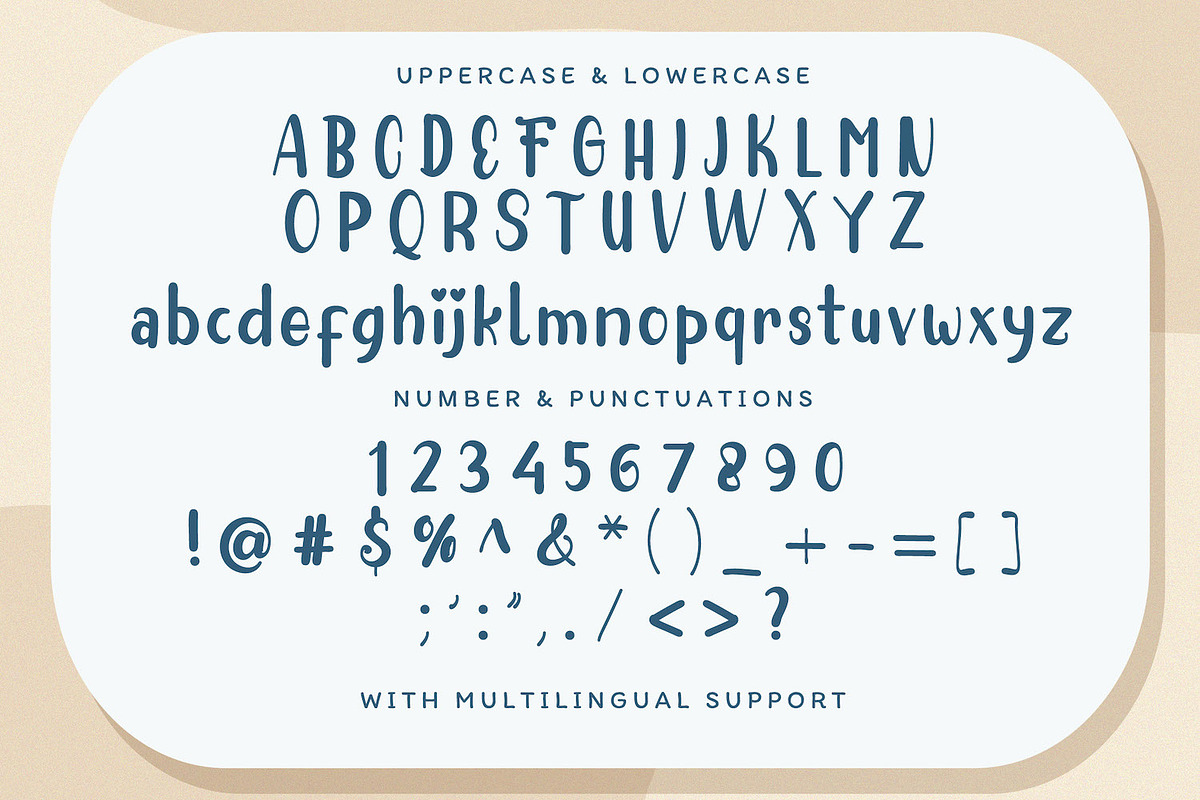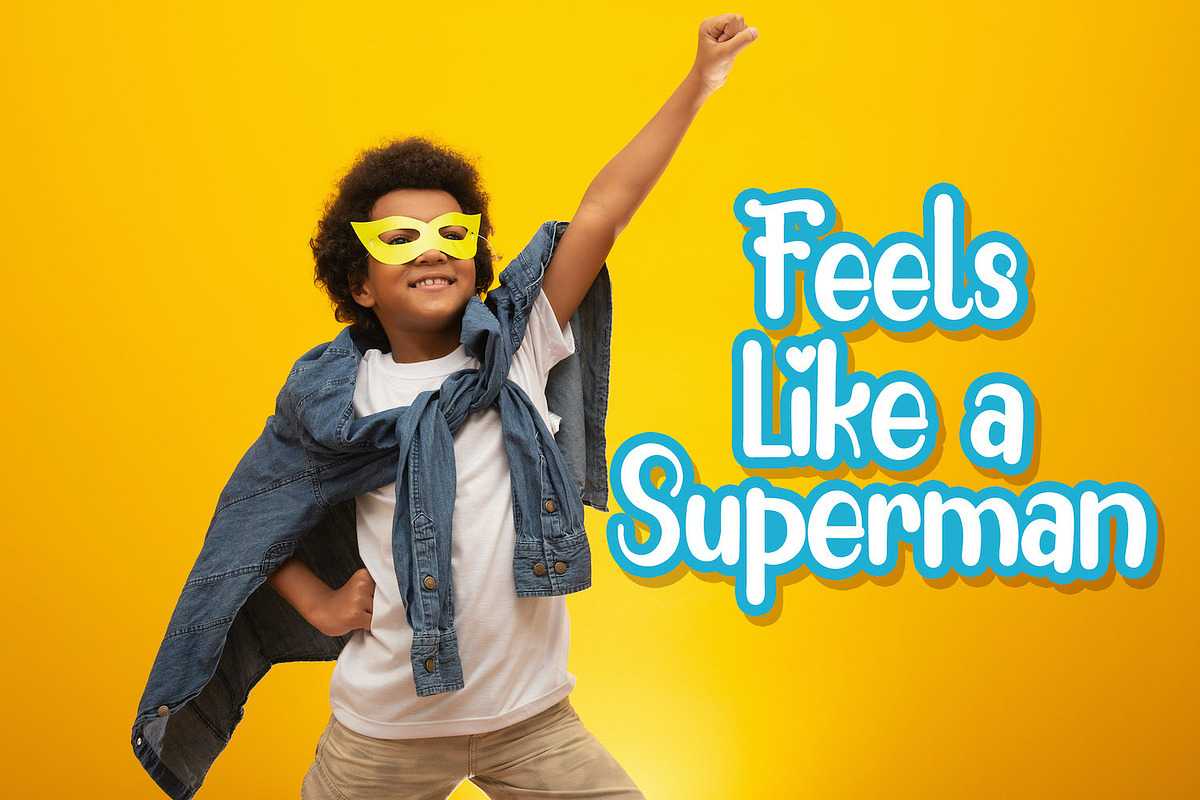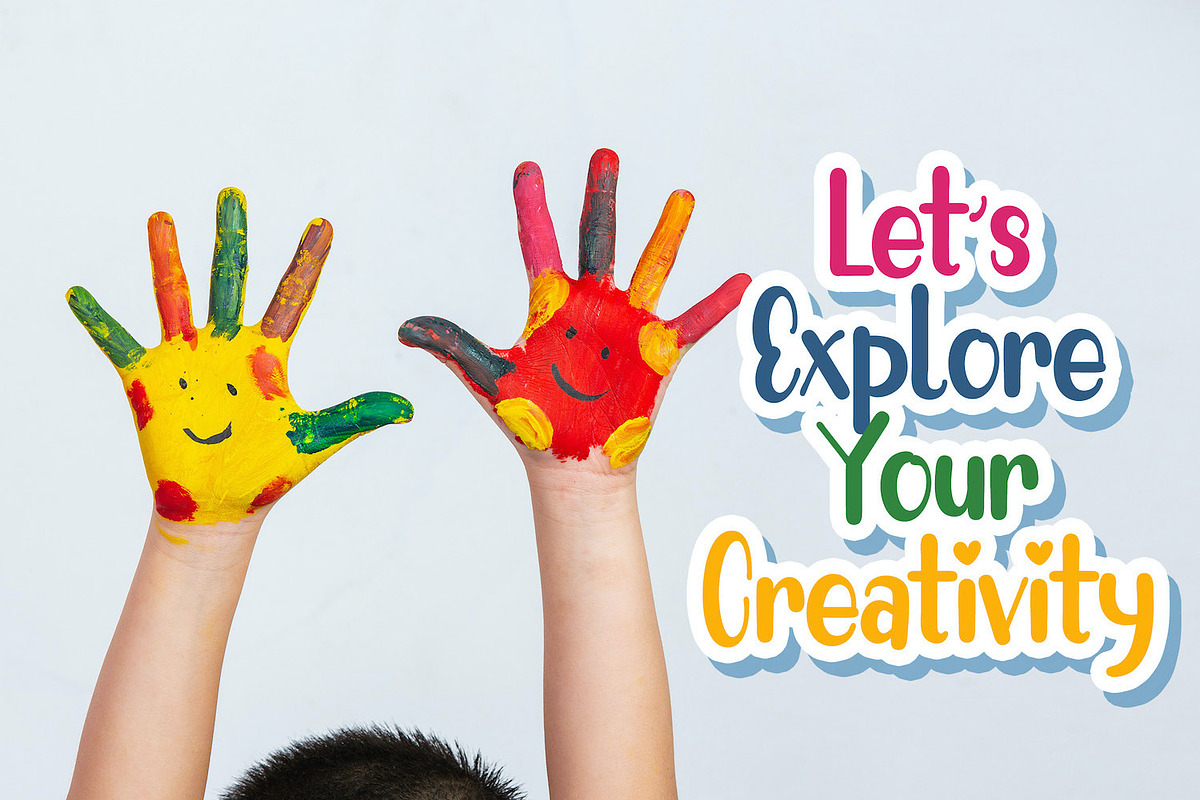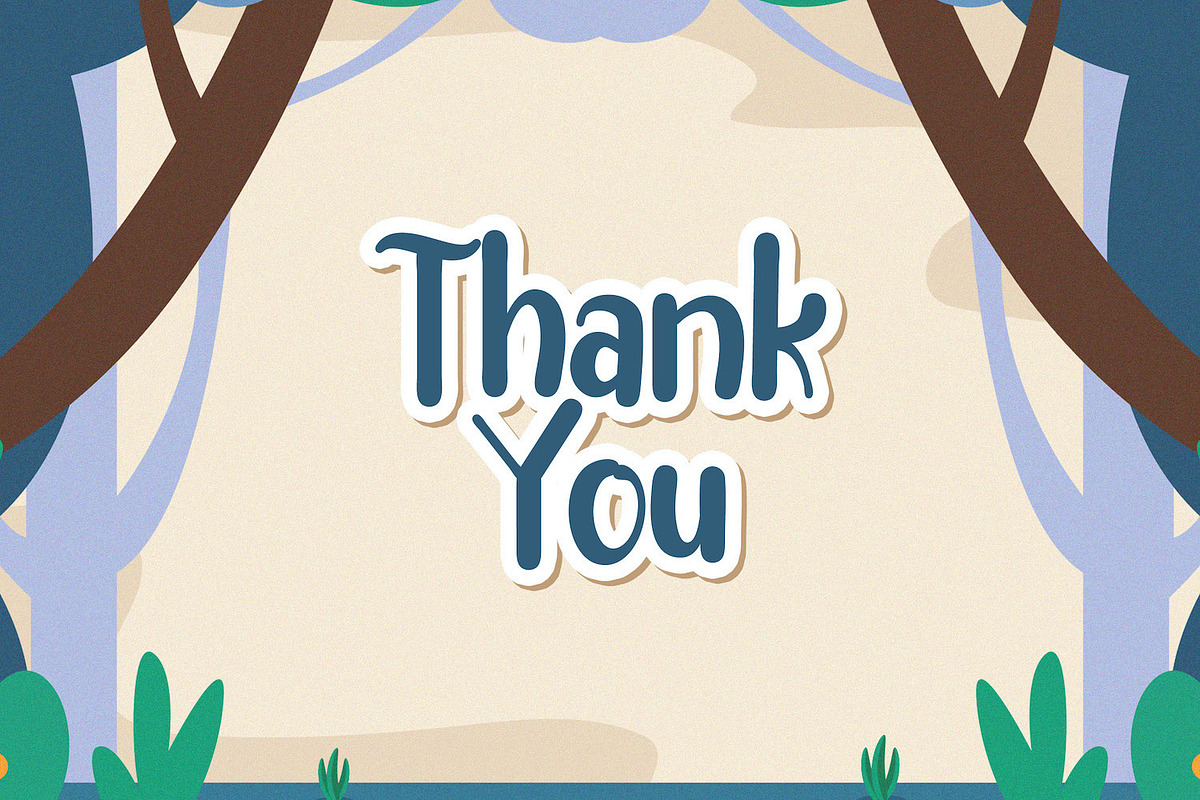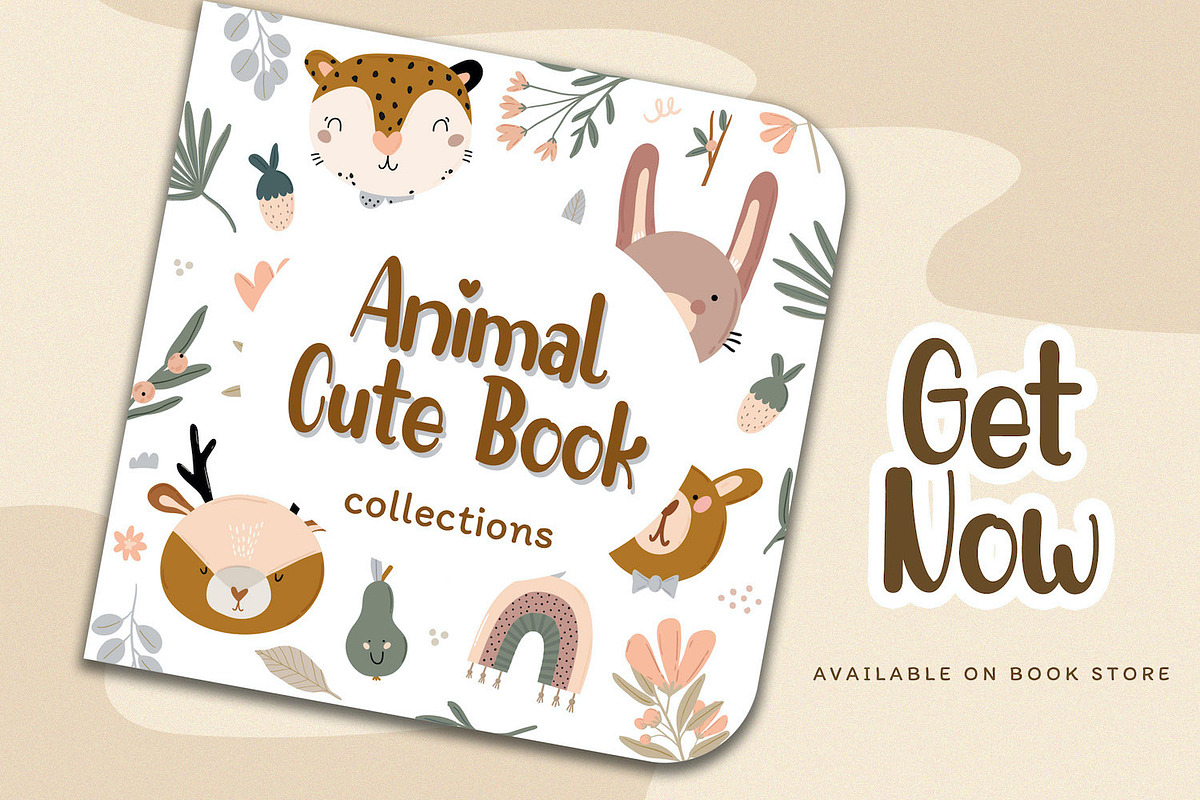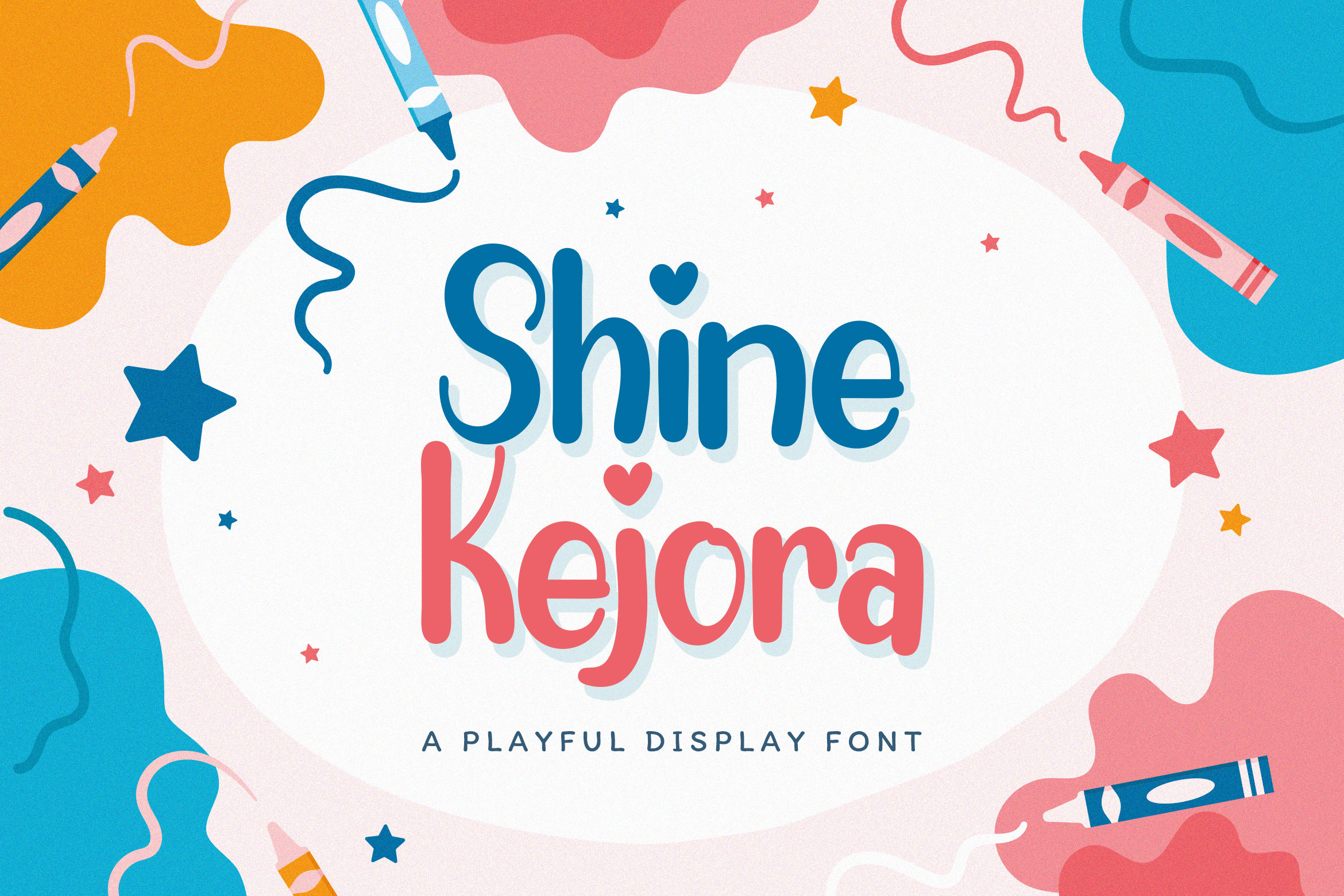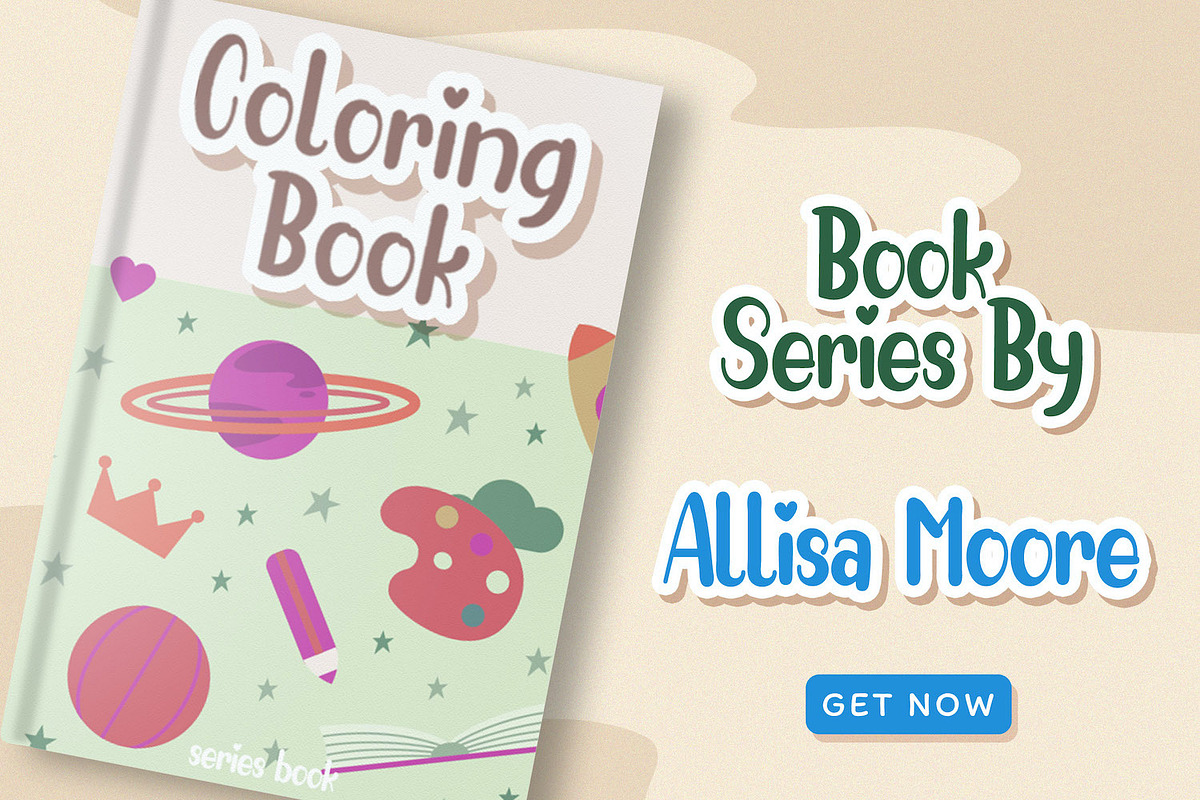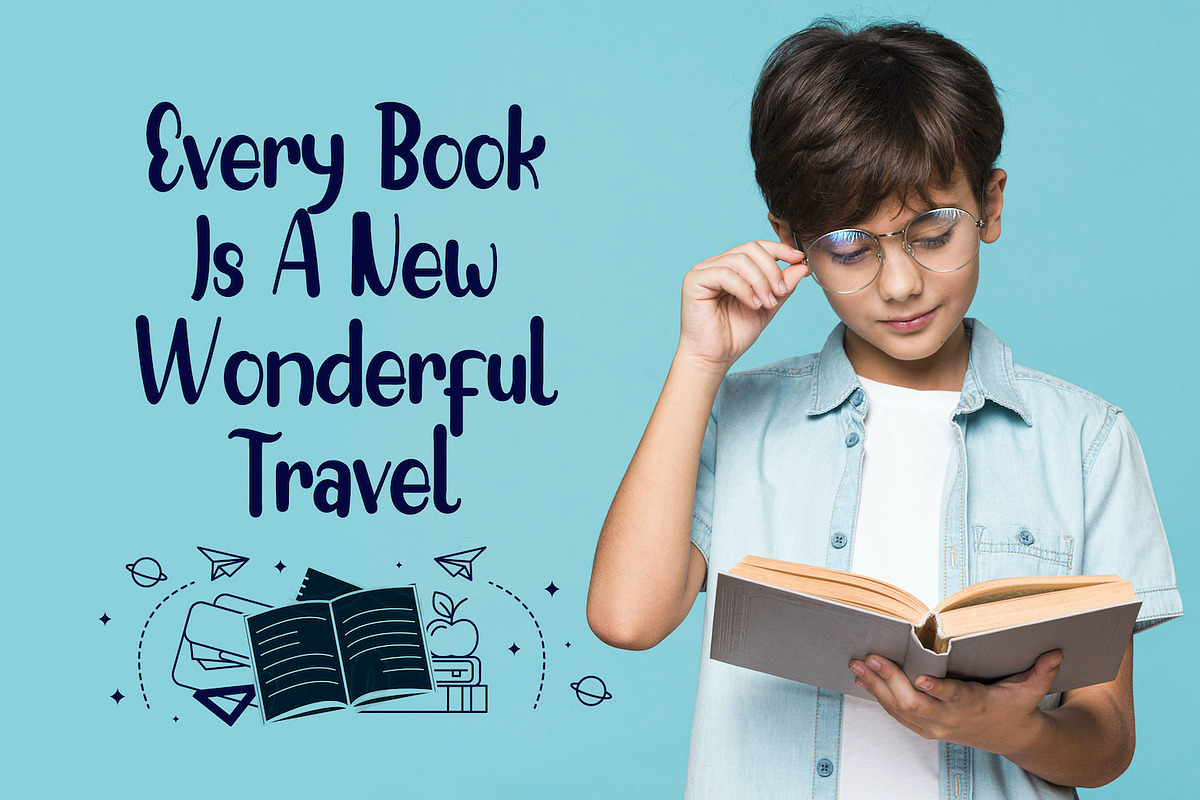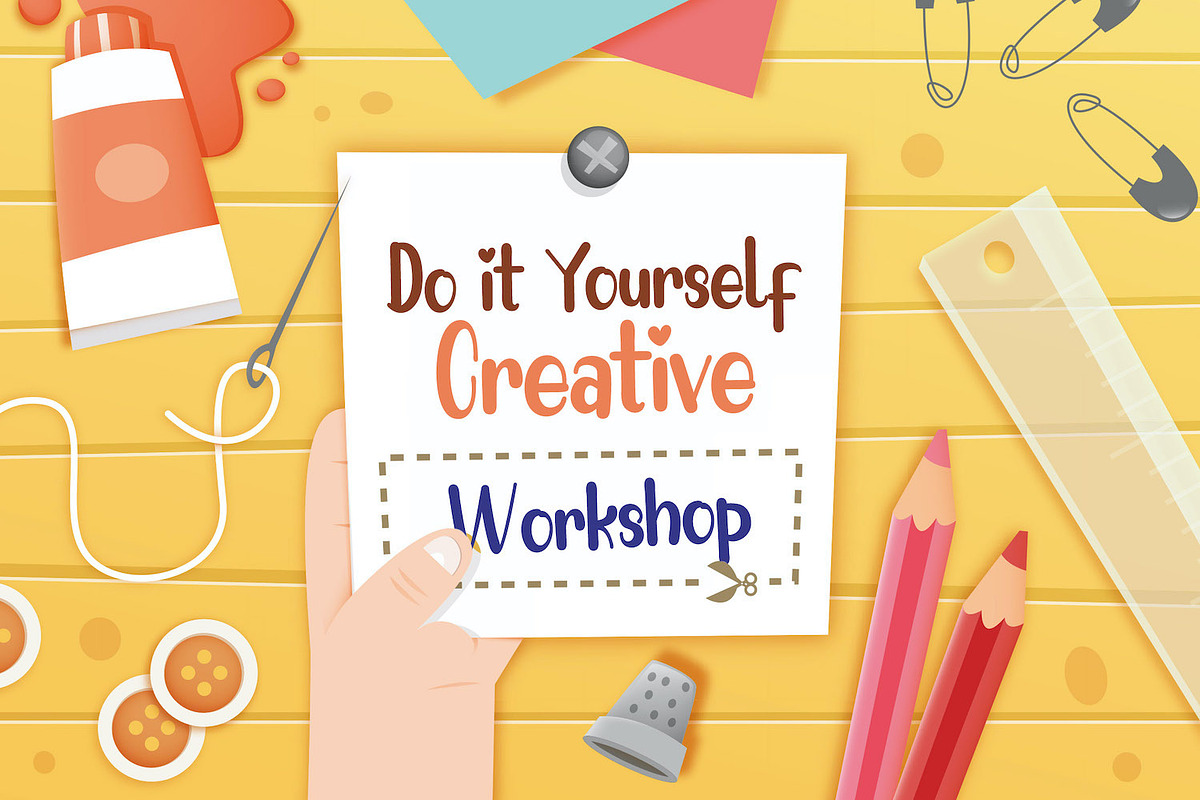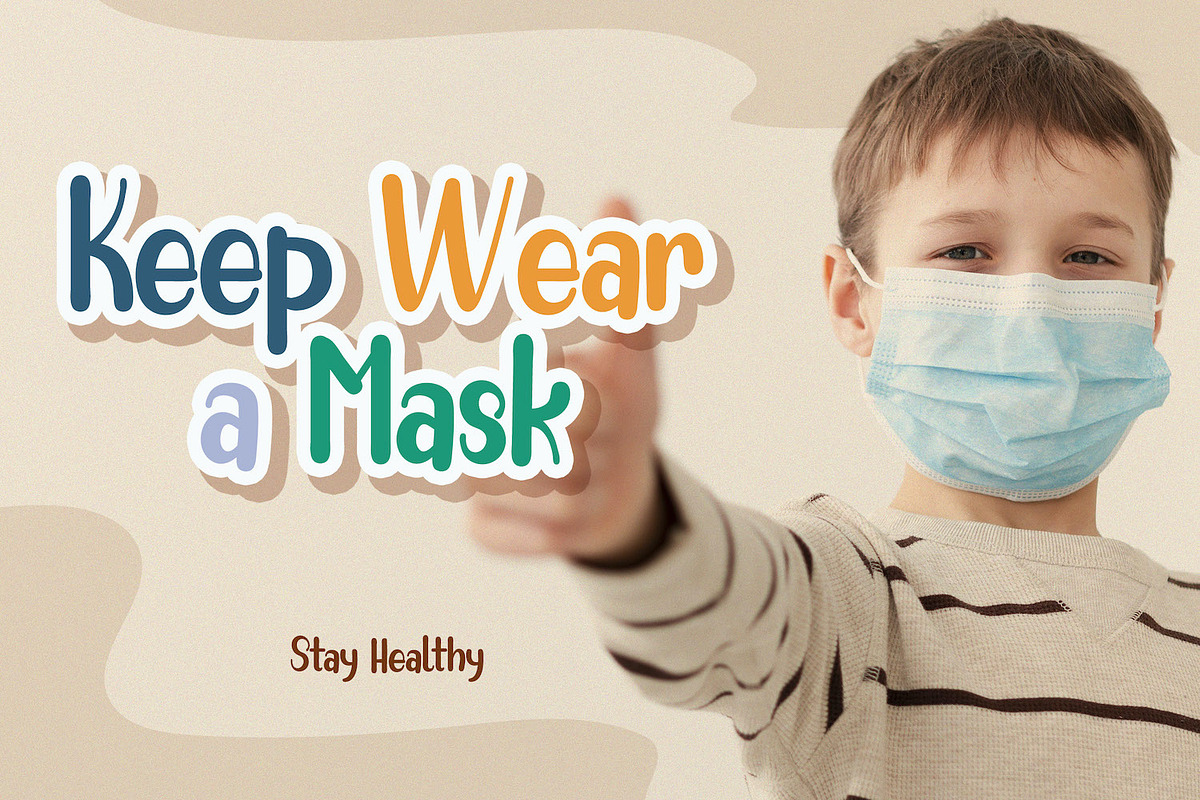
Shine Kejora - Playful Display Font
Introducing Shine Kejora - Playful Display Font
Shine Kejora is a fun and chunky lettered display font. Playful and fresh, this font will be a hit for each of your children or school projects!